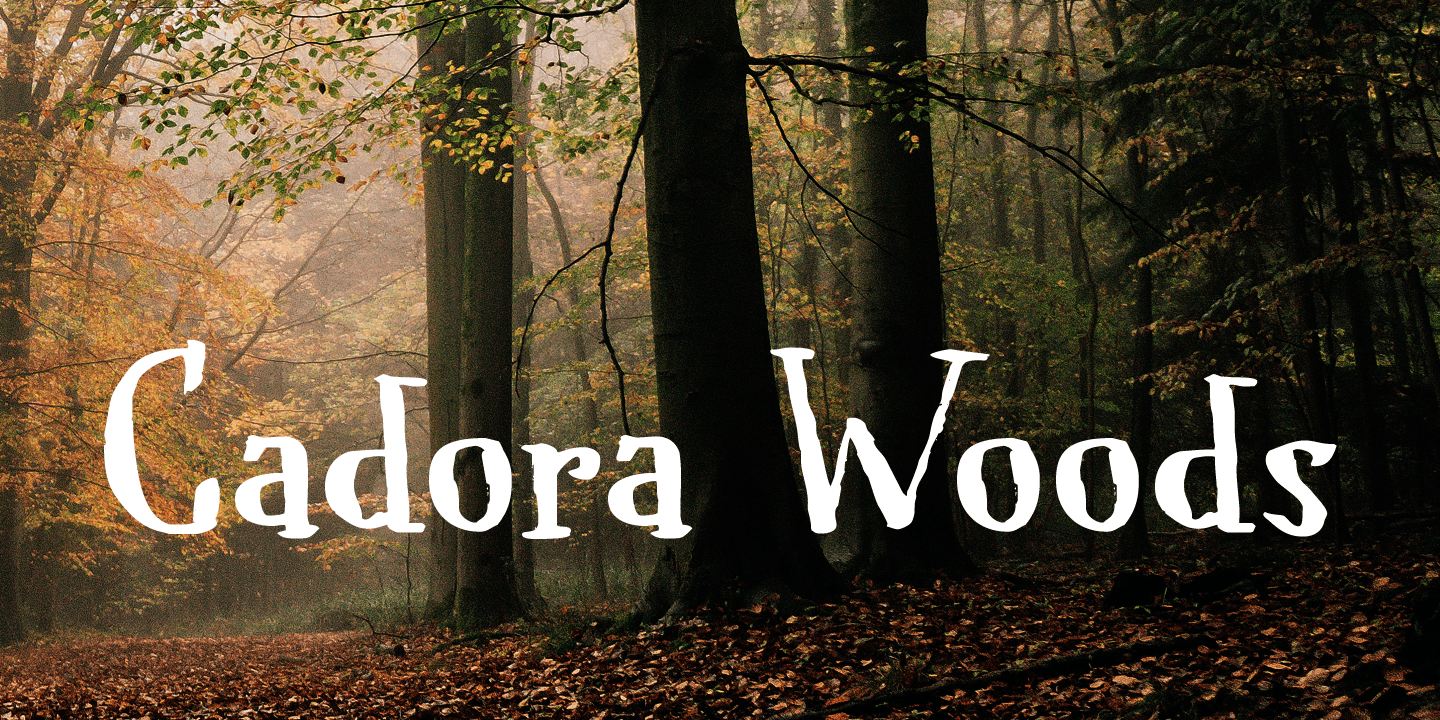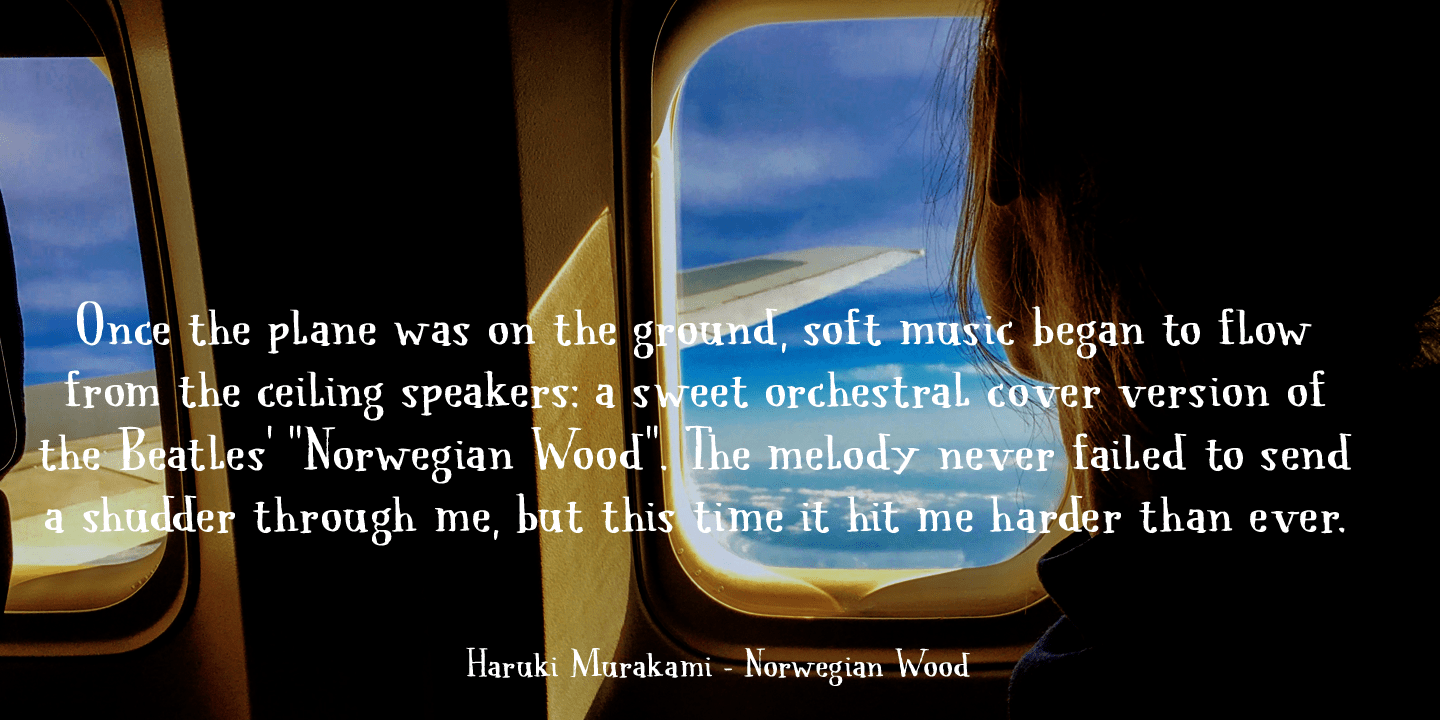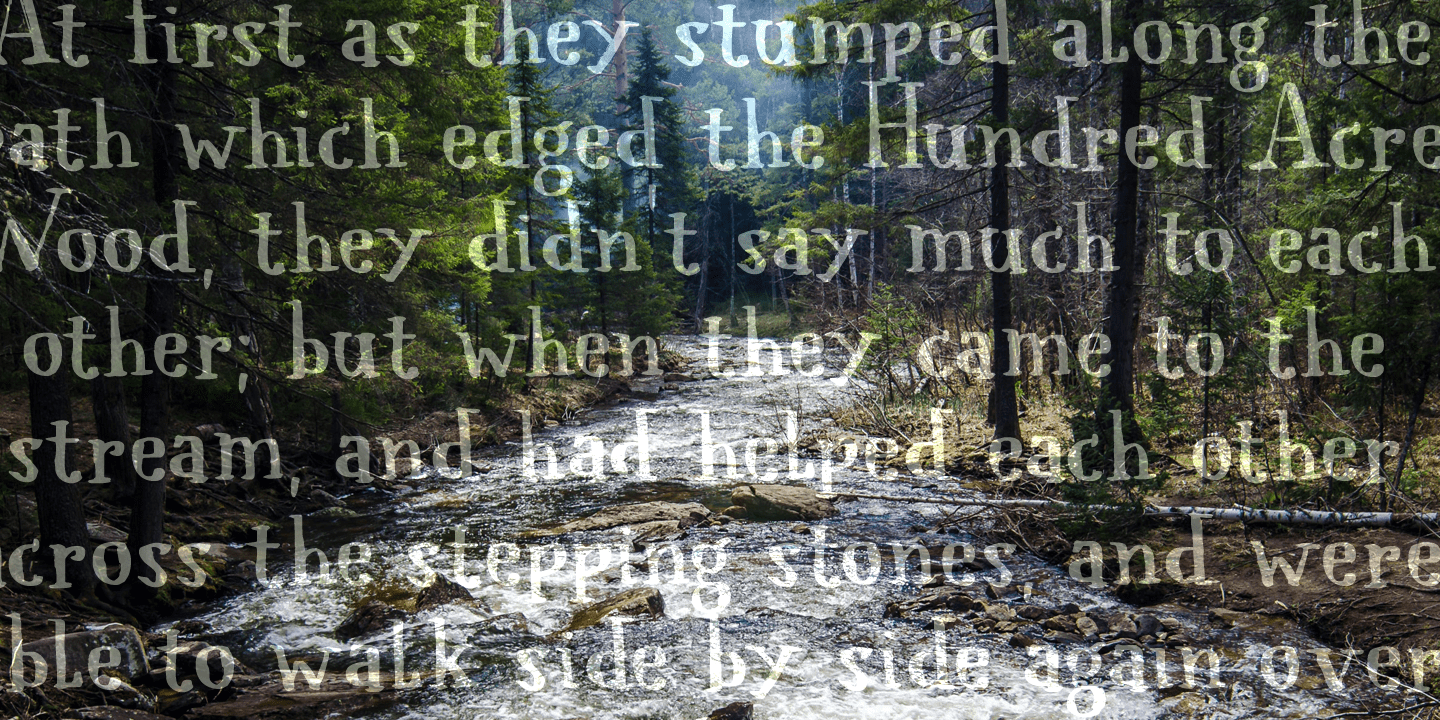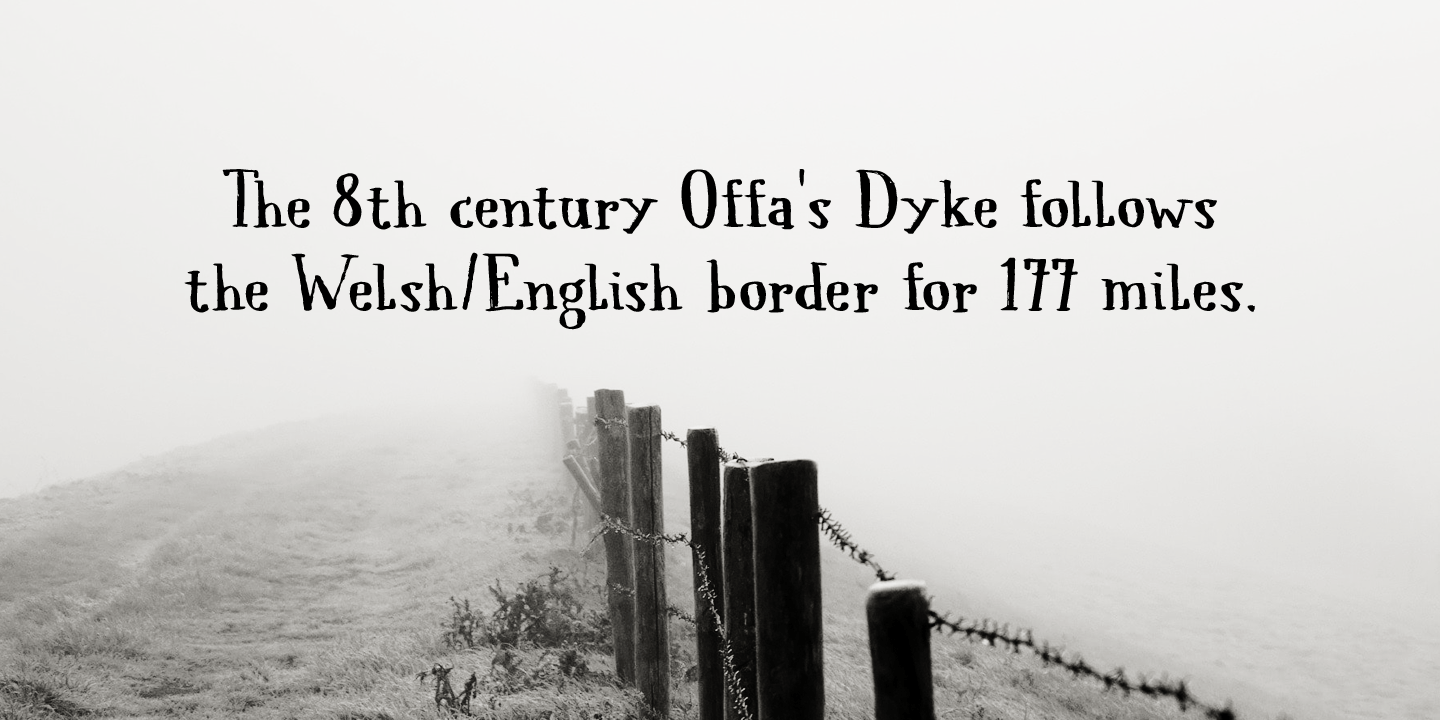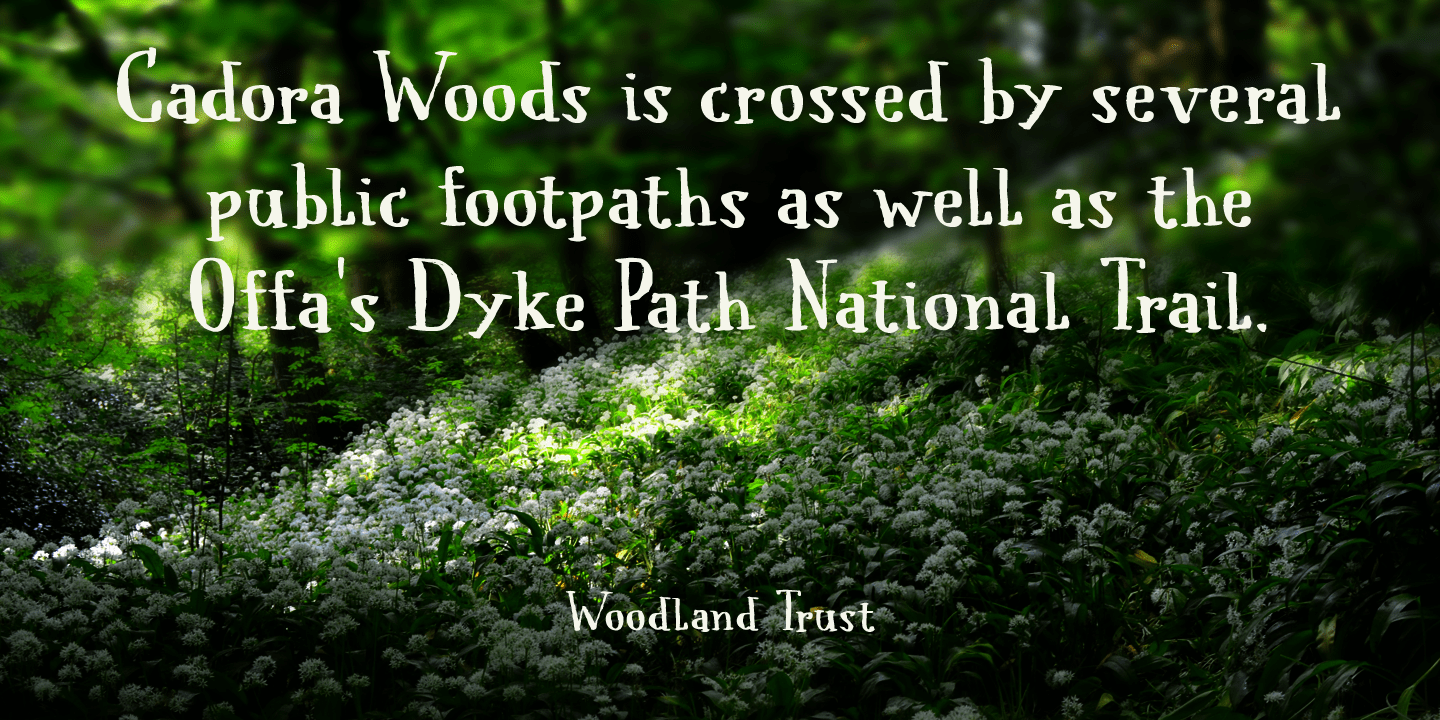
Cadora Woods
Font Family by Hanoded
Last year I walked half of Offa's Dyke path, a long distance trail on the Welsh/English border. Walking the trail, I came across a beautiful stretch of forest with a lovely name: Cadora Woods.
Cadora Woods font was made with a Japanese brush pen. It sort of looks medieval and a friend of mine suggested it would be the font of choice for maps of ?The Shire?..
I guess that is true, but I am convinced you can come up with some innovative uses for this font!